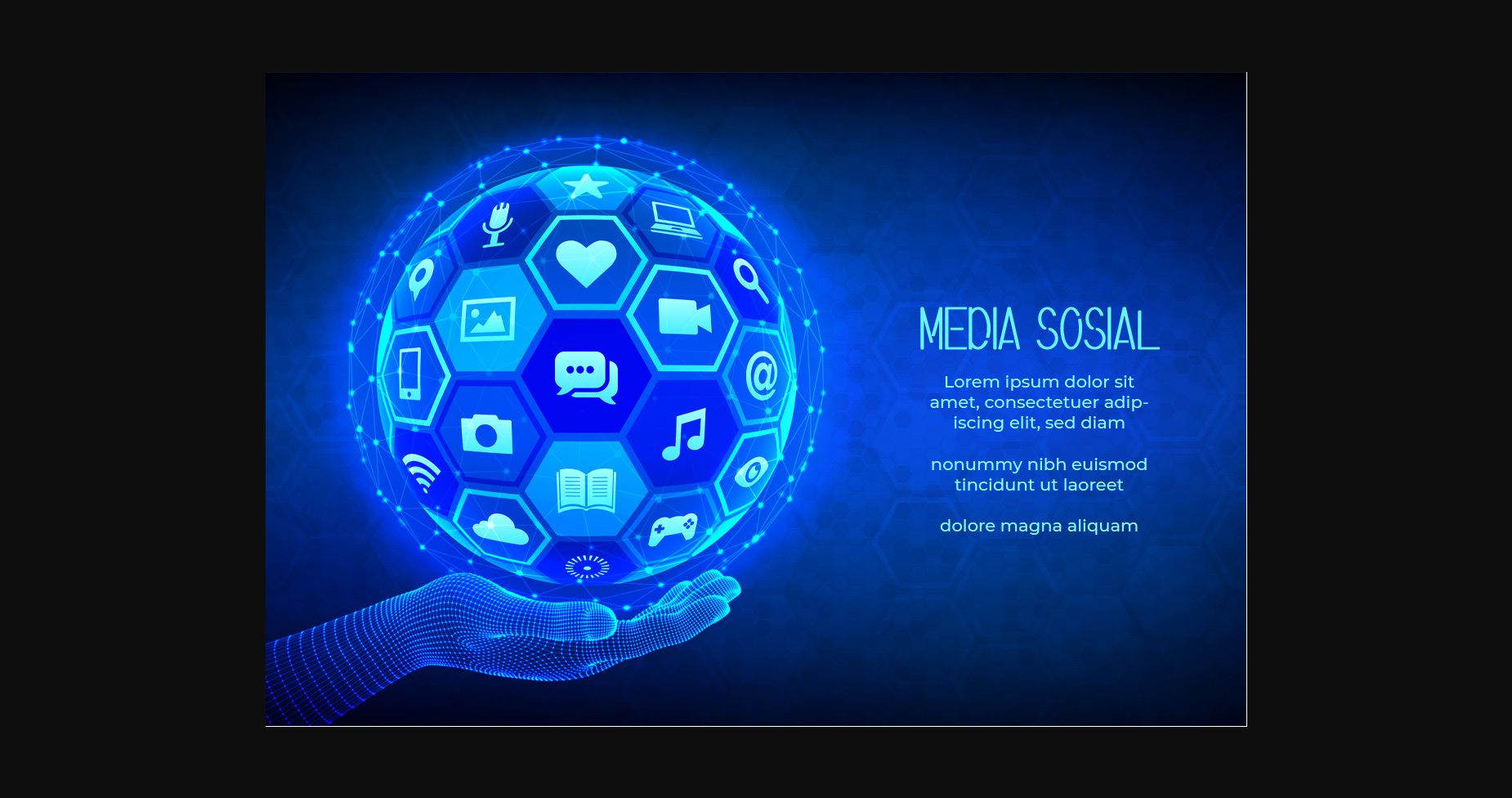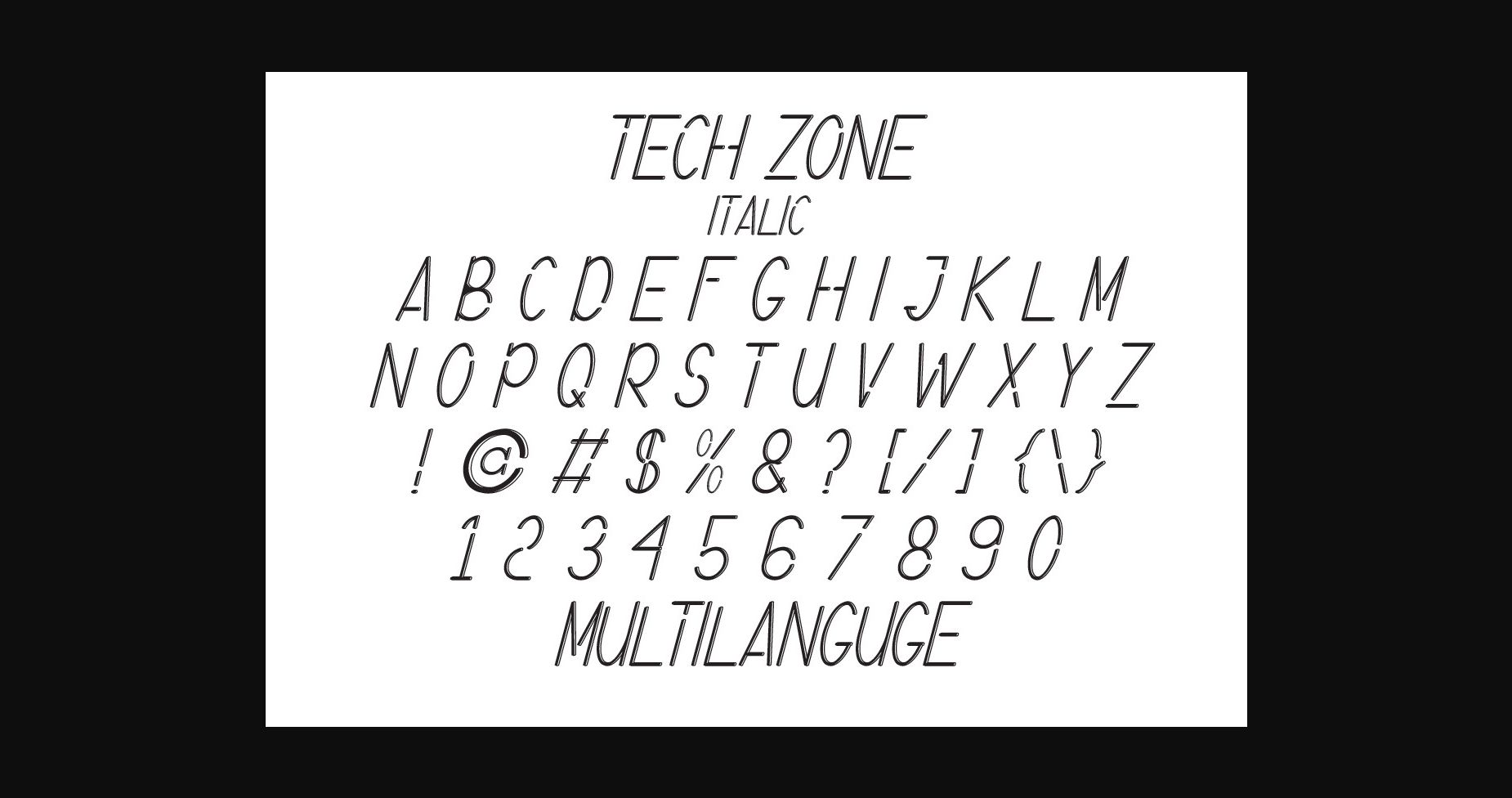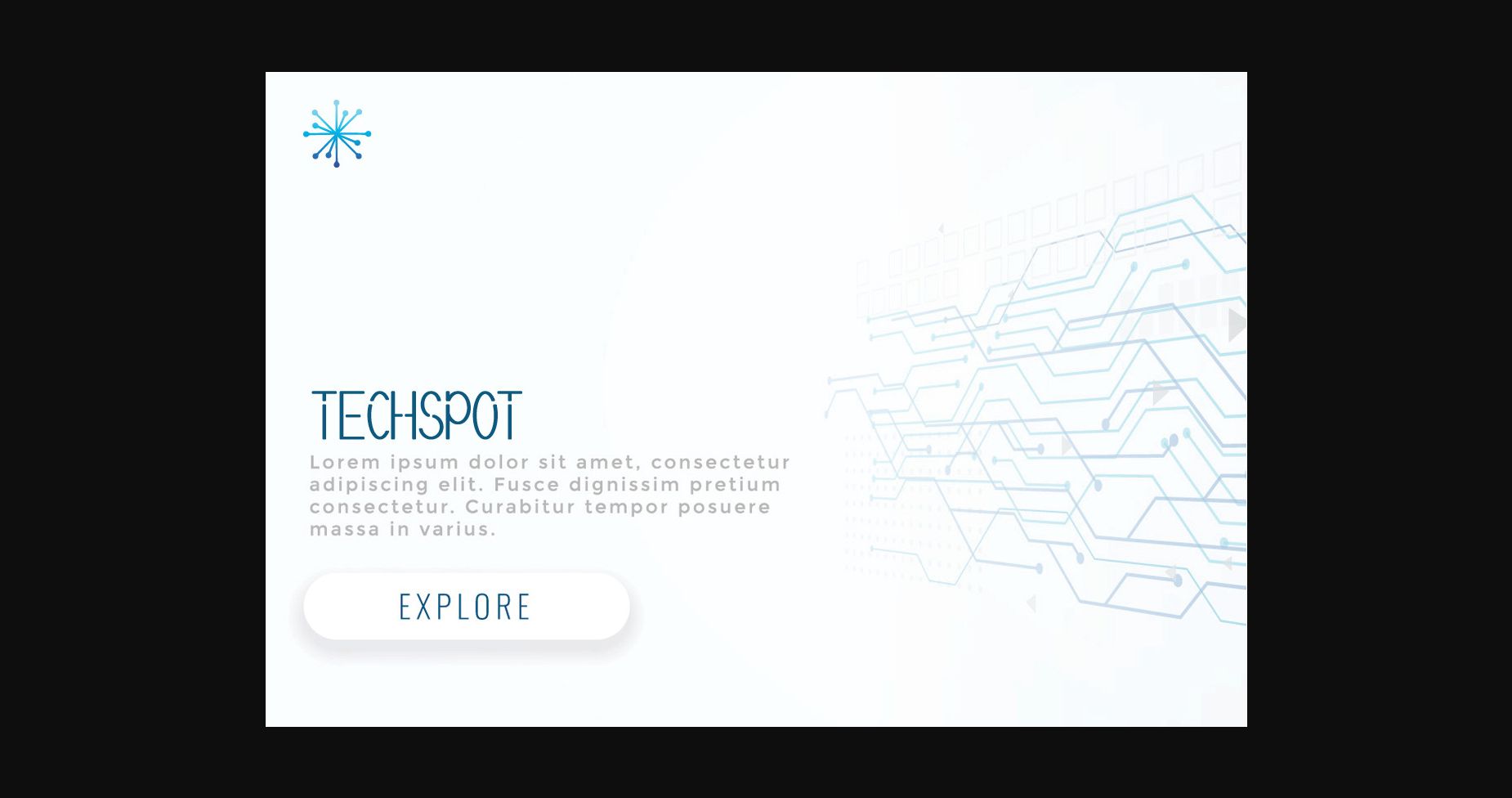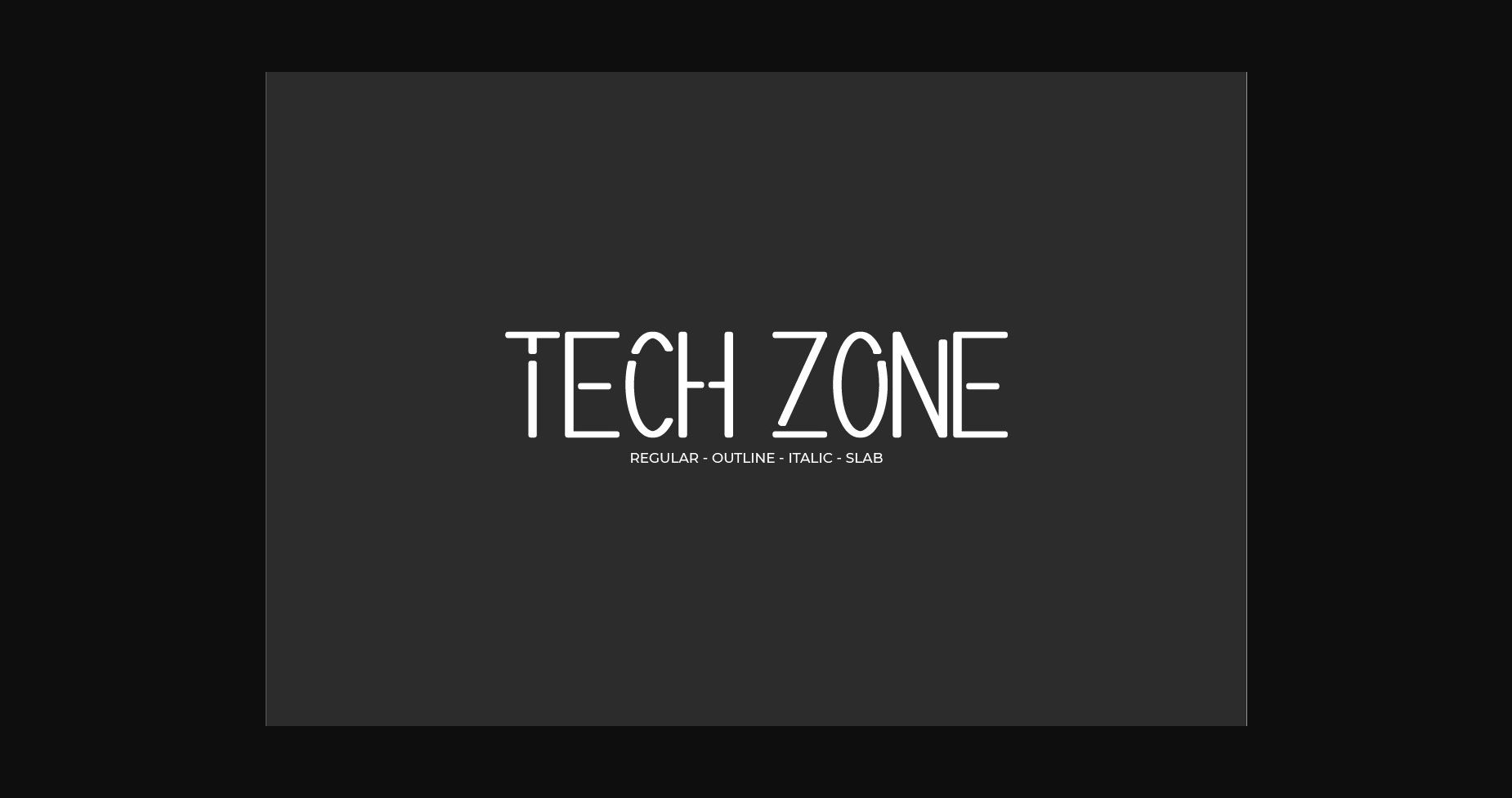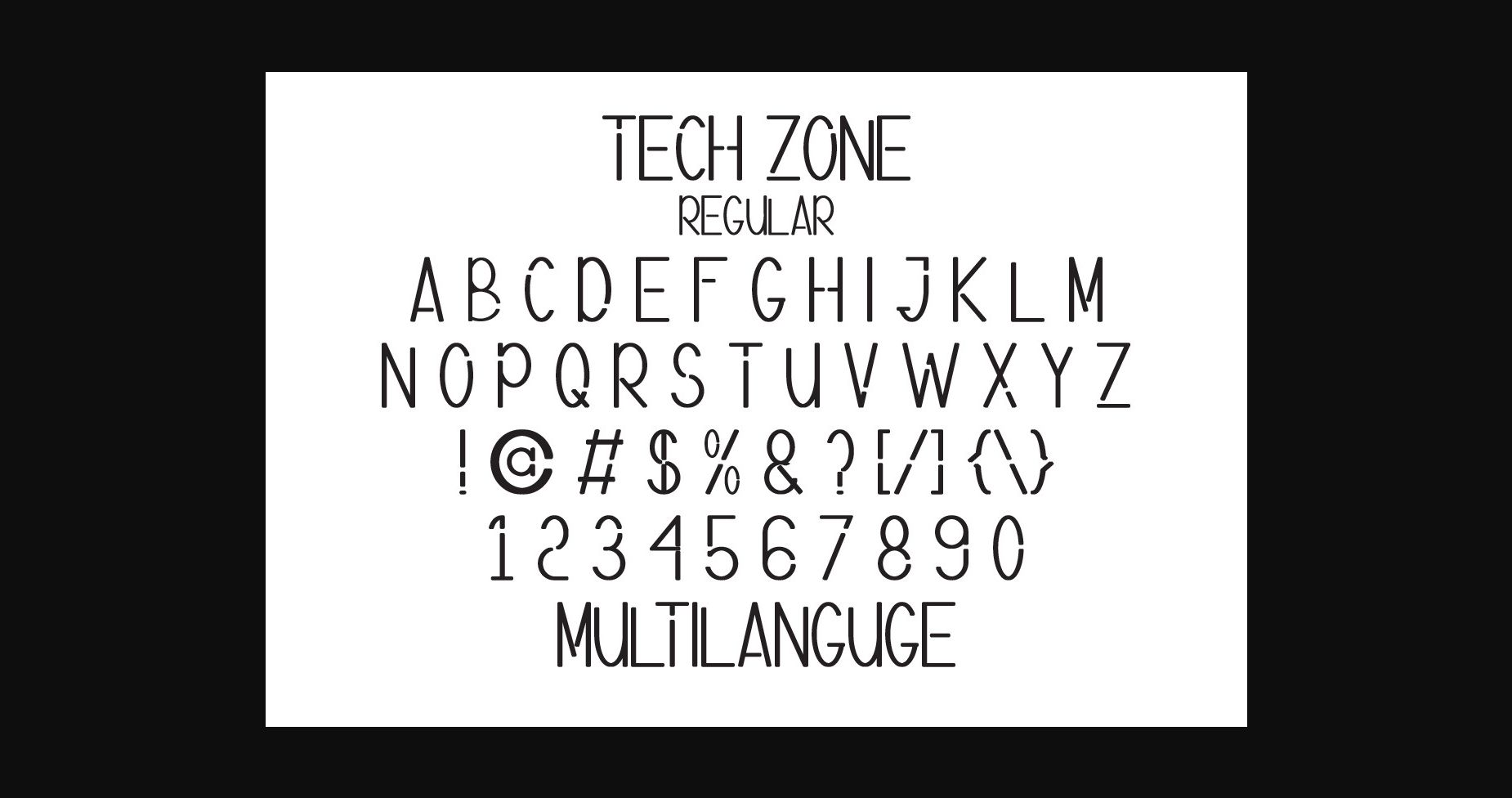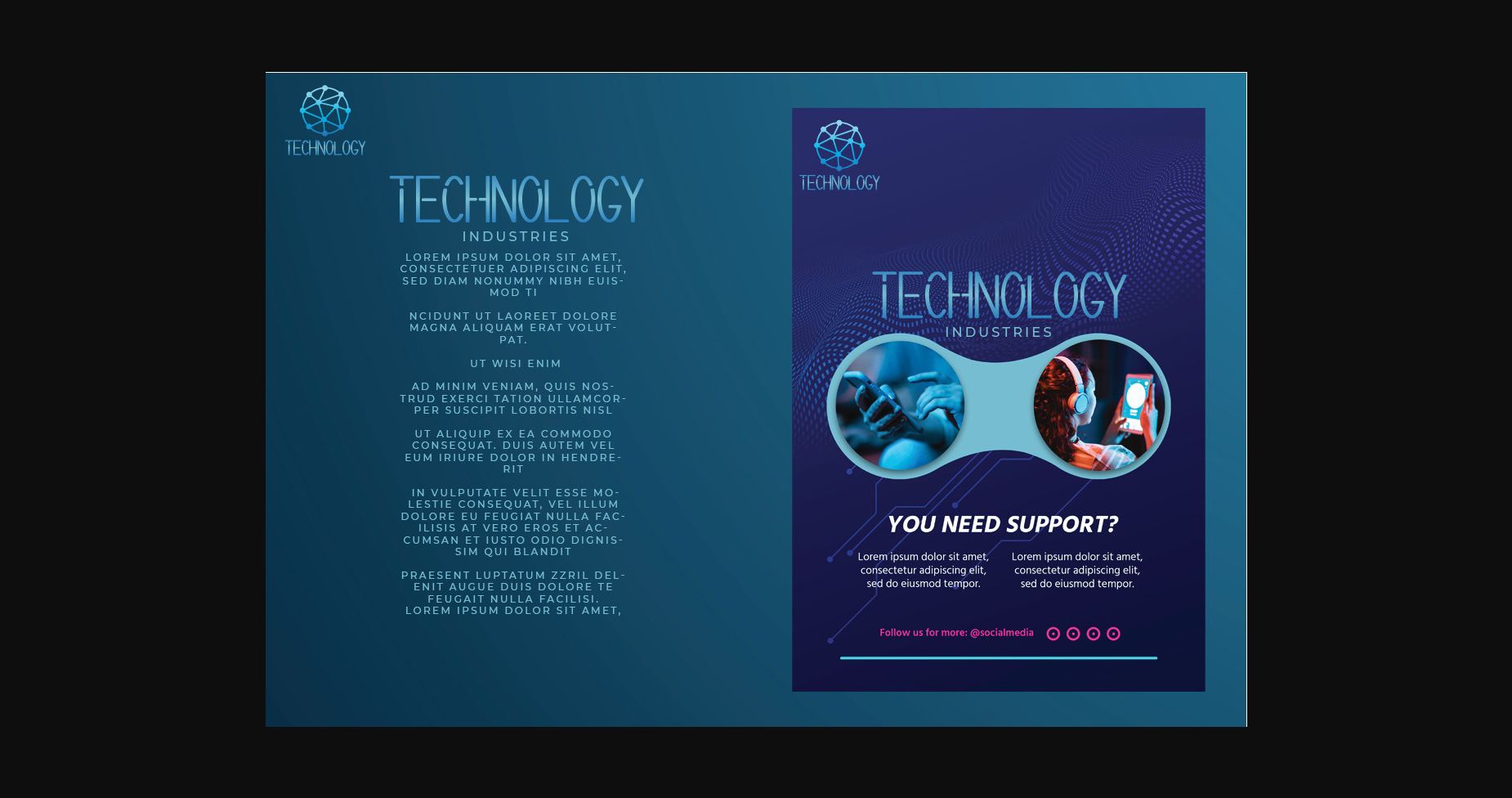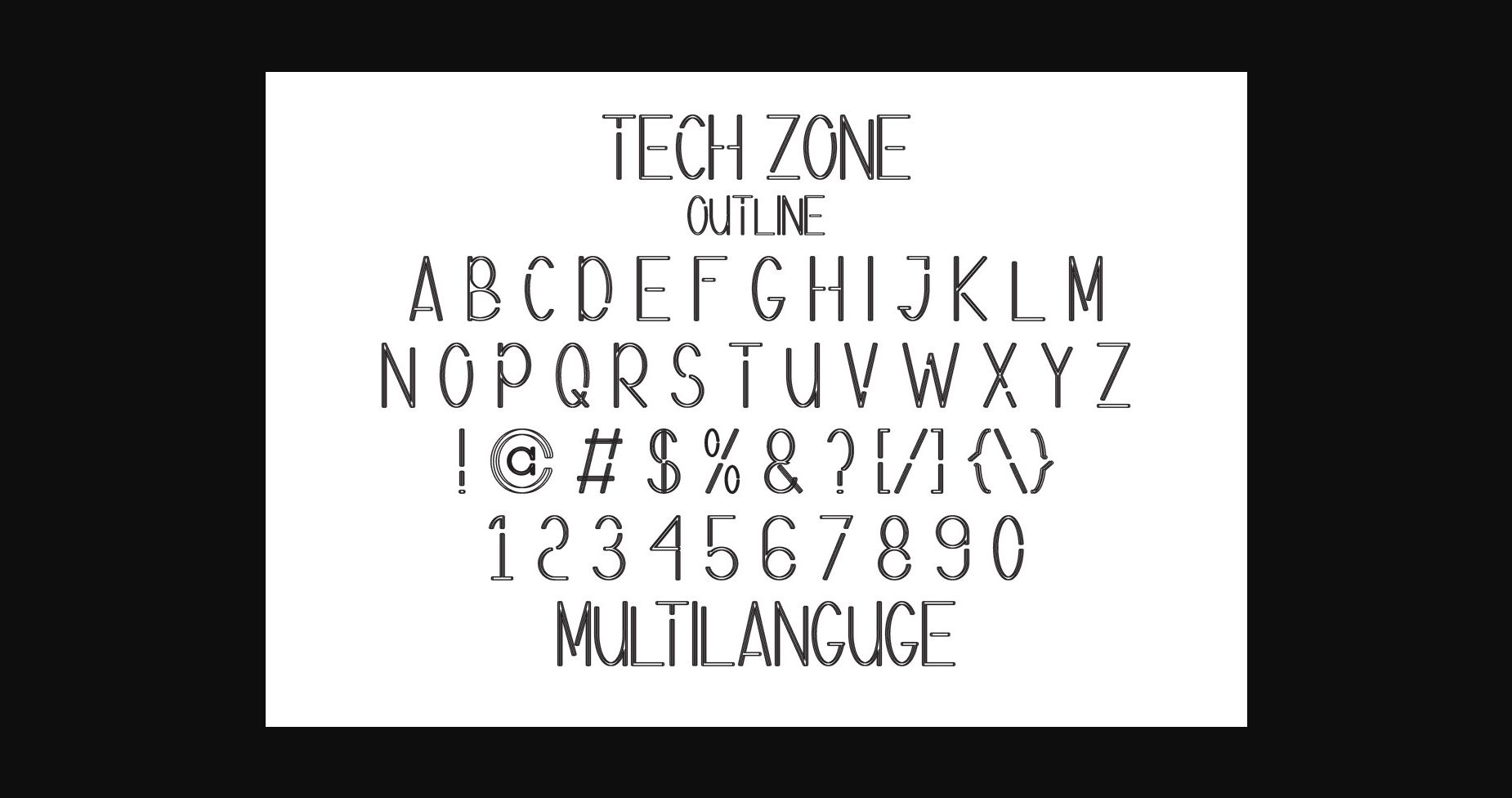
About Tech Zone Font
Tech Zone is a modern sans serif font with negative space on its shapes. This font has a futuristic and techno style that looks stunning in just about every context. Use it for logos, print, collage, body text, and more!
This font is perfect for headings, logos, branding design, quotes, products, cards, stationery, invitations, etc. Be a perfect professional in a minute, and start creating today!